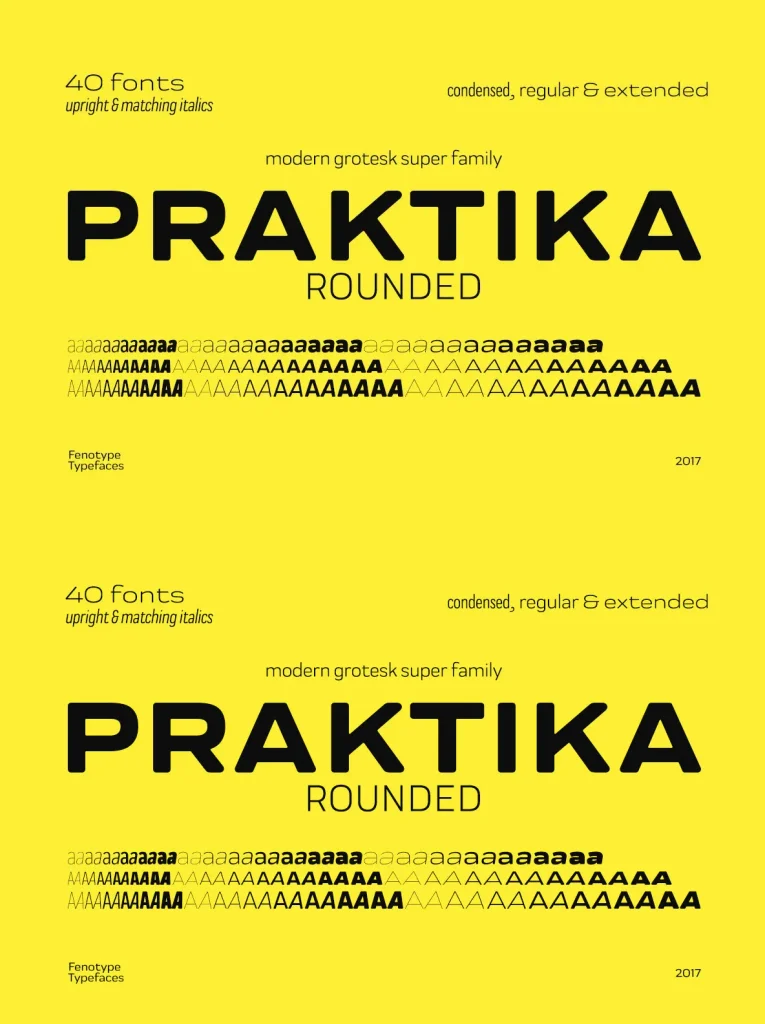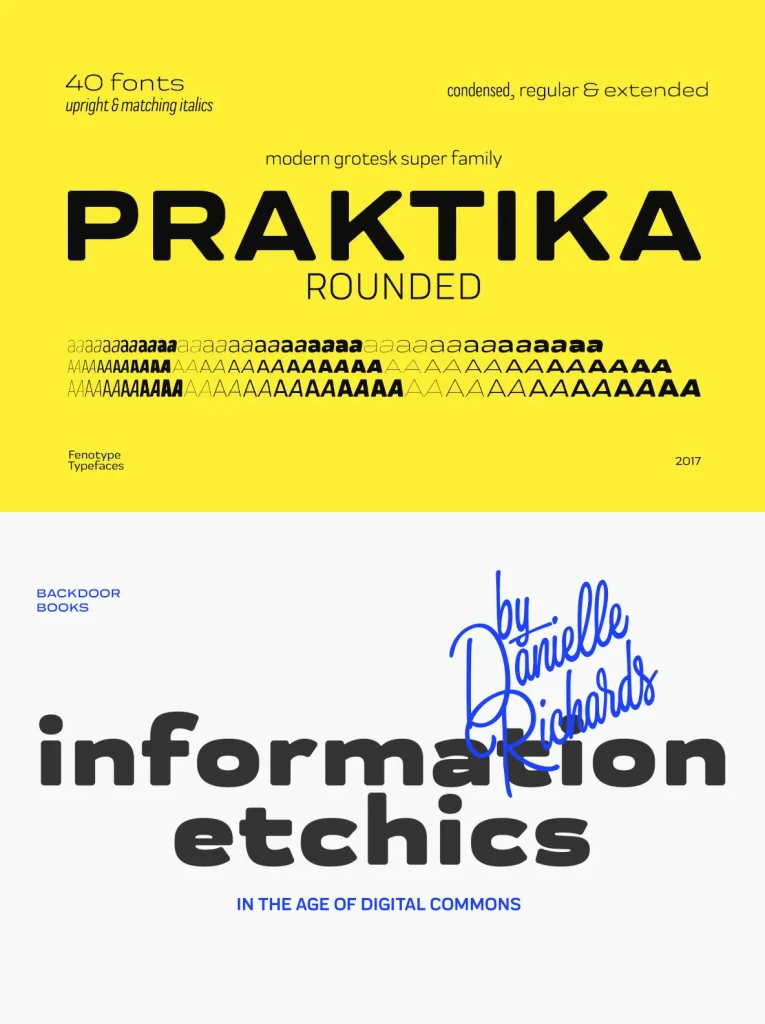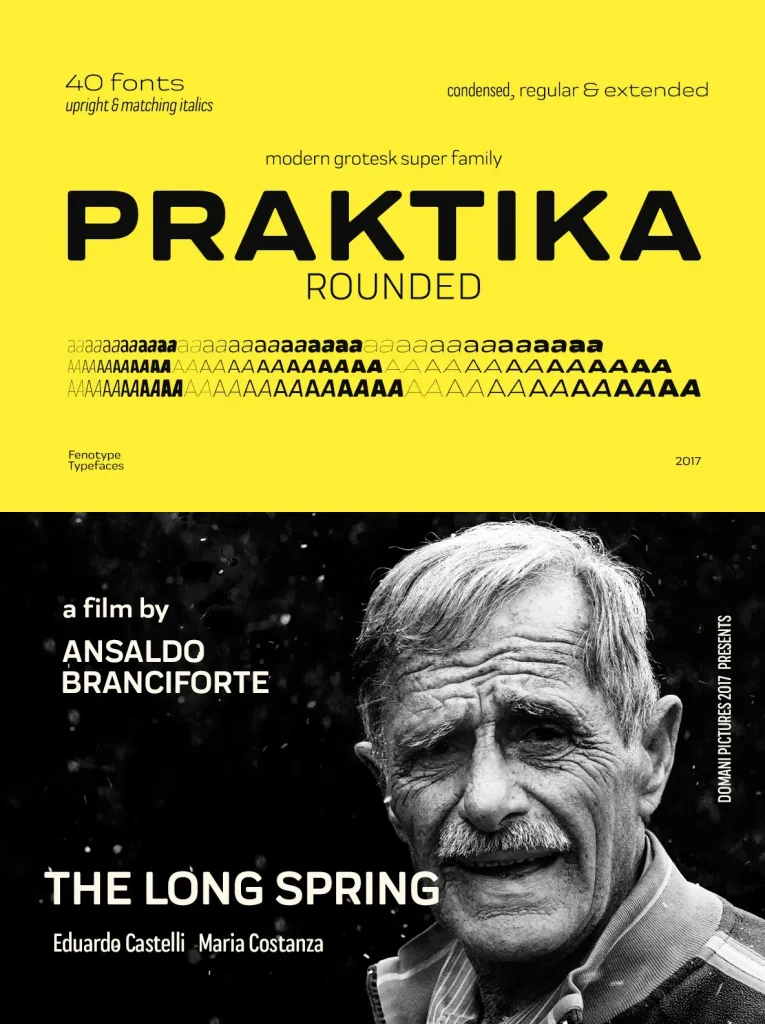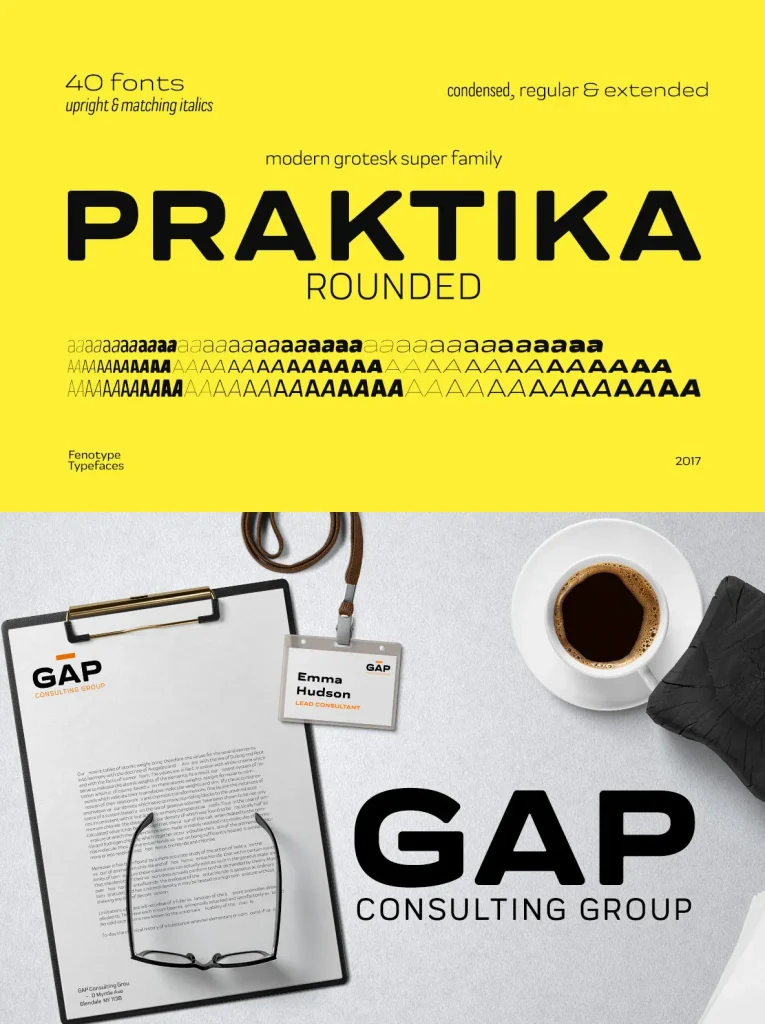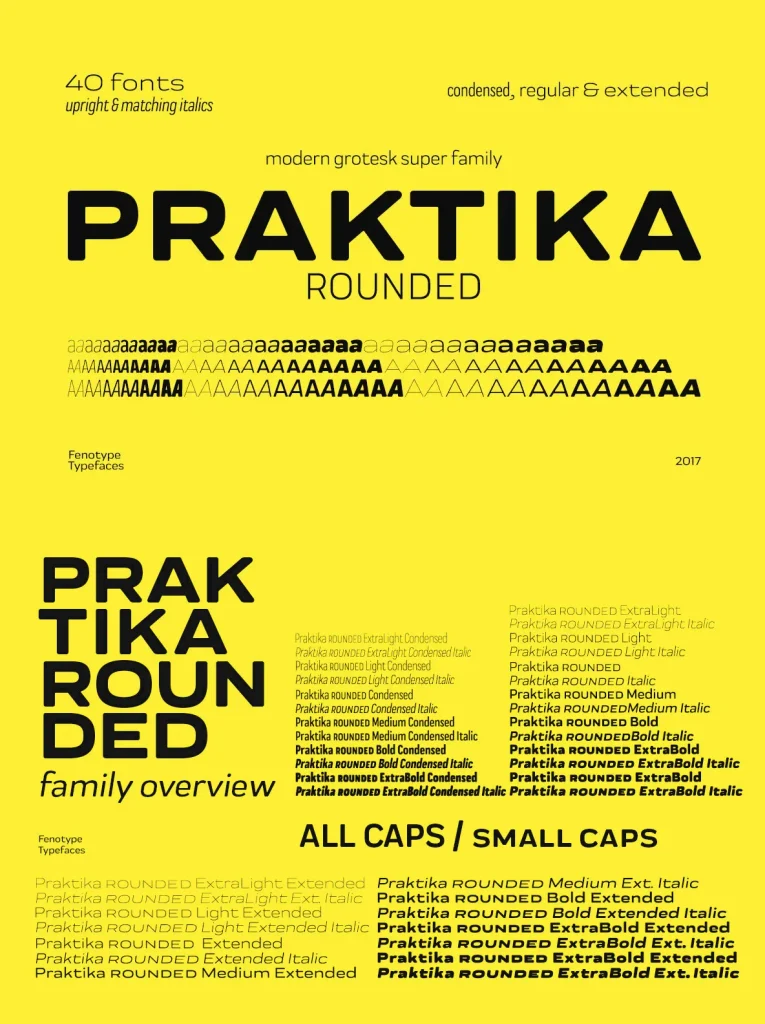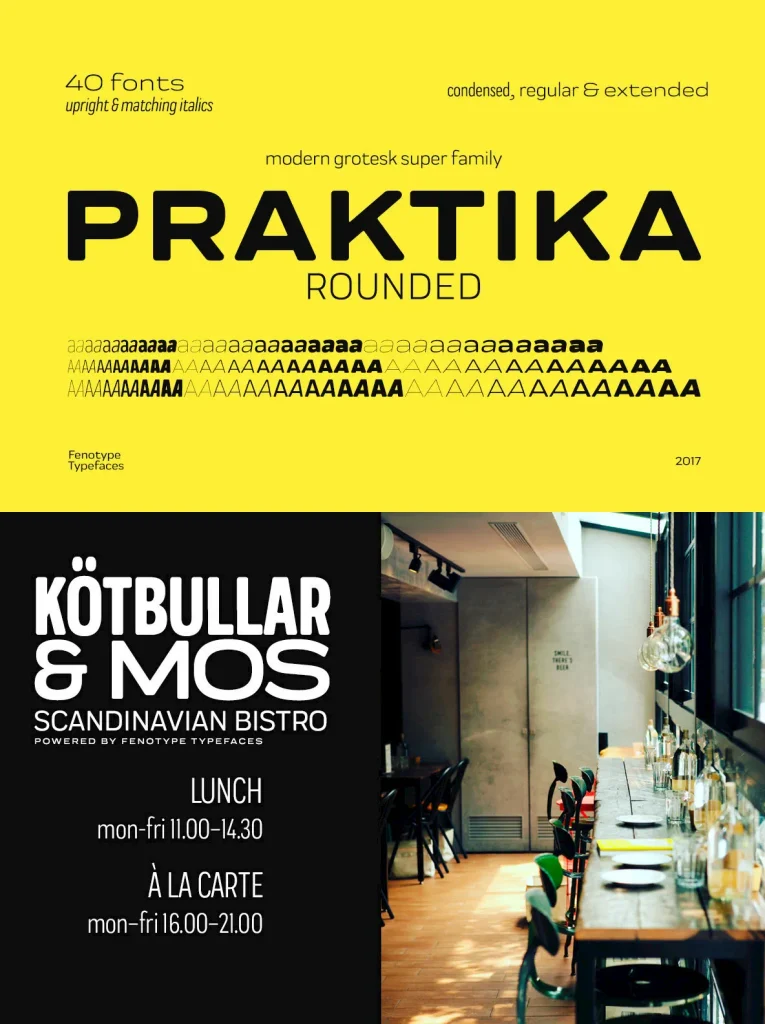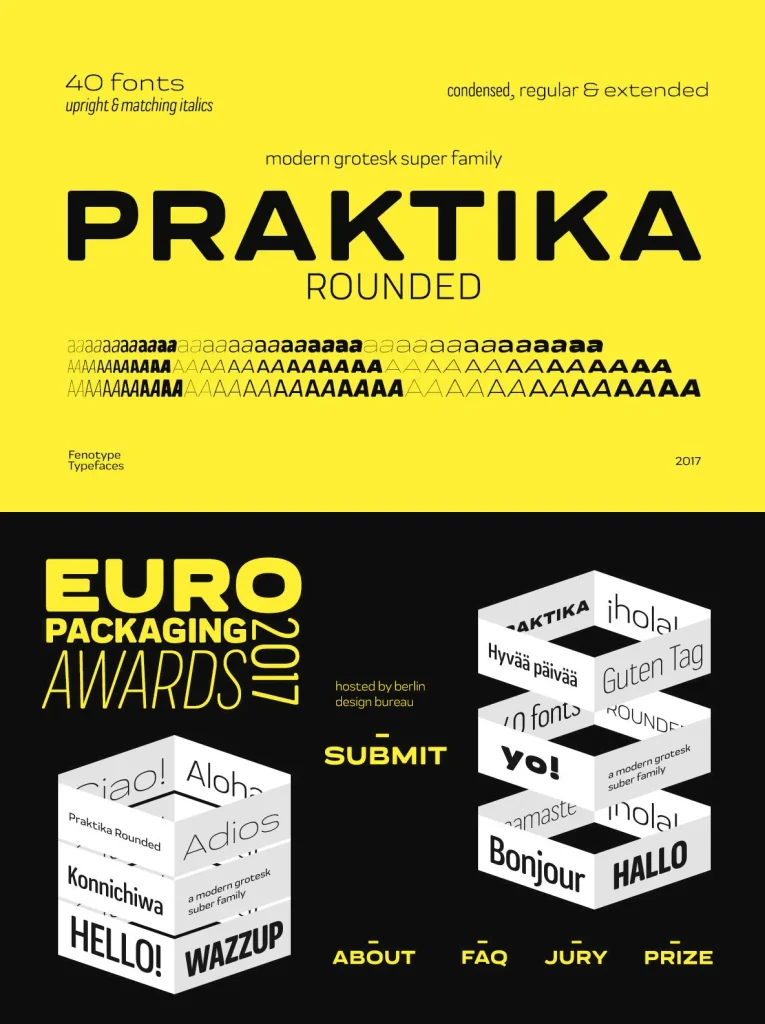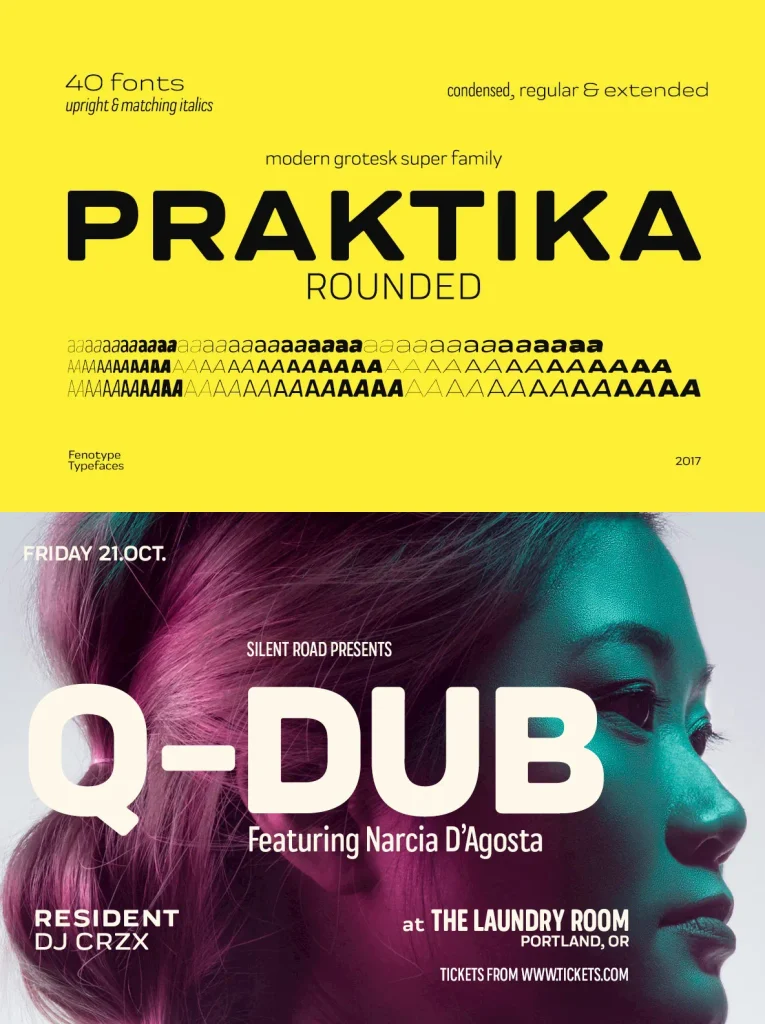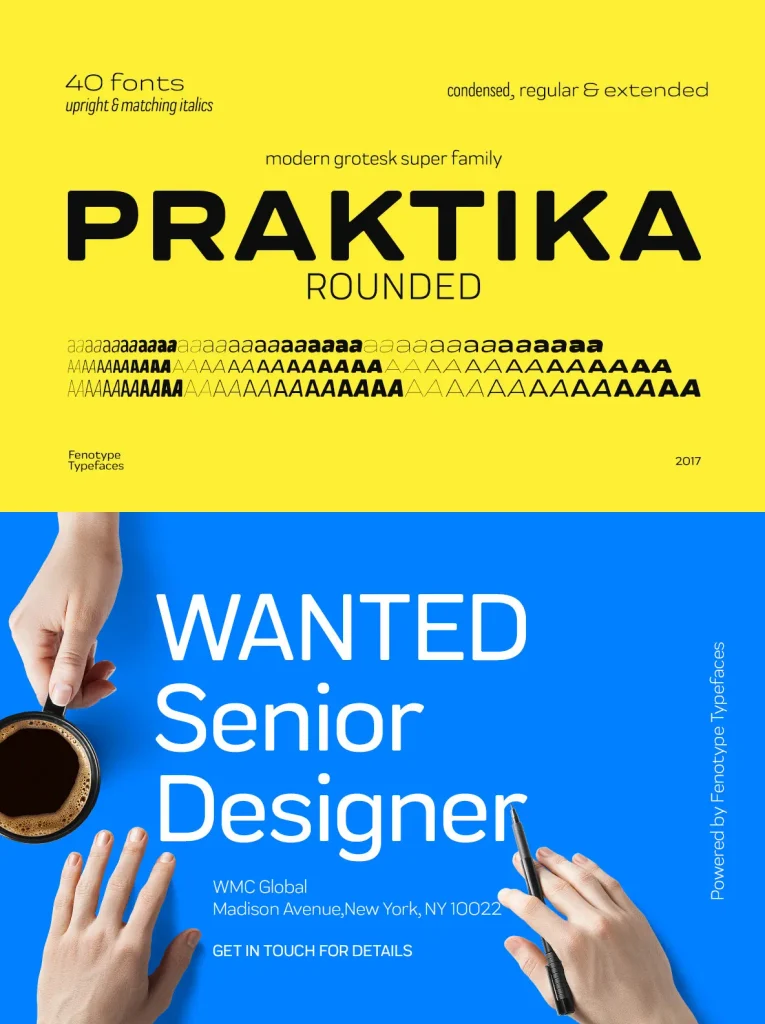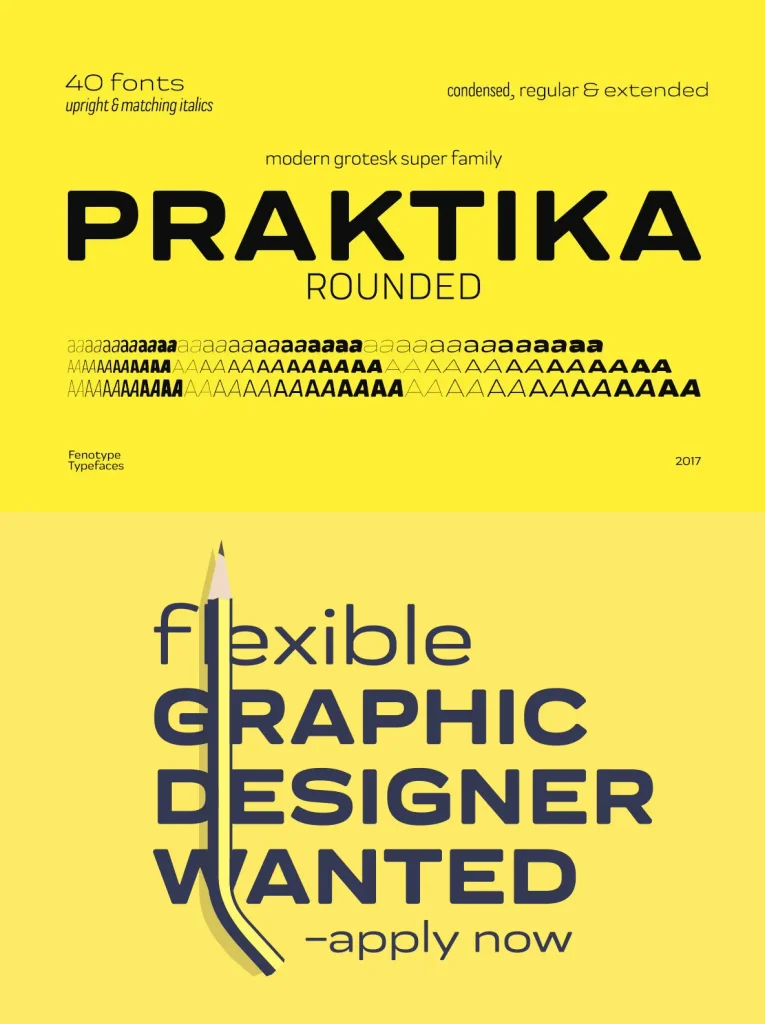
Praktika Rounded Font
Praktika Rounded — Urban Utility, Softer Edges
If you missed Praktika—the previous bestseller of Fenotype—this rounded counterpart offers a fresh way in. Praktika Rounded keeps the practical backbone of the original while shifting the tone. It reads contemporary and urban, with a distinct look and feel that stays clear and functional across applications.
Praktika Rounded shares the same seven weights and three widths found in the original Praktika family. It also includes the same familiar OpenType features, making it a reliable choice for typography that needs range, consistency, and polish across editorial, branding, and digital design.
OpenType Features
Built-in small capitals
Both lining and old style numerals, in tabular or proportional form
Superscript and subscript numerals
Many alternate characters